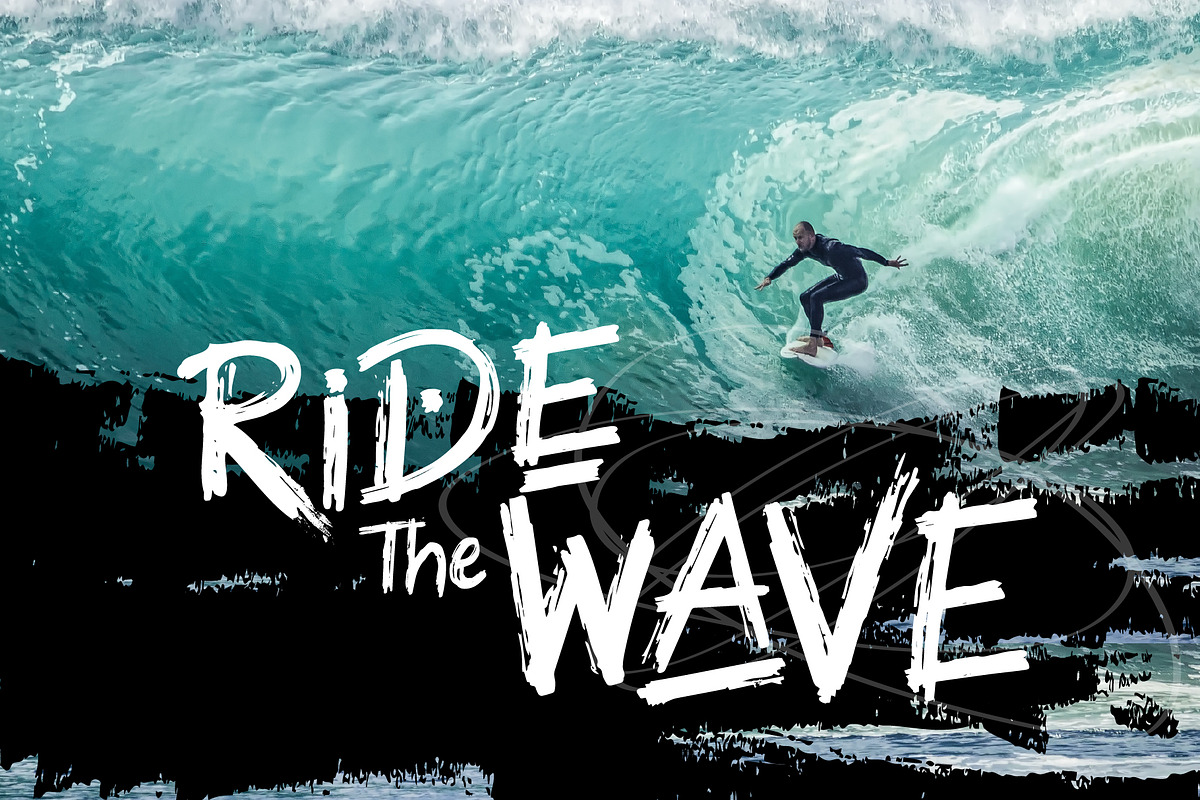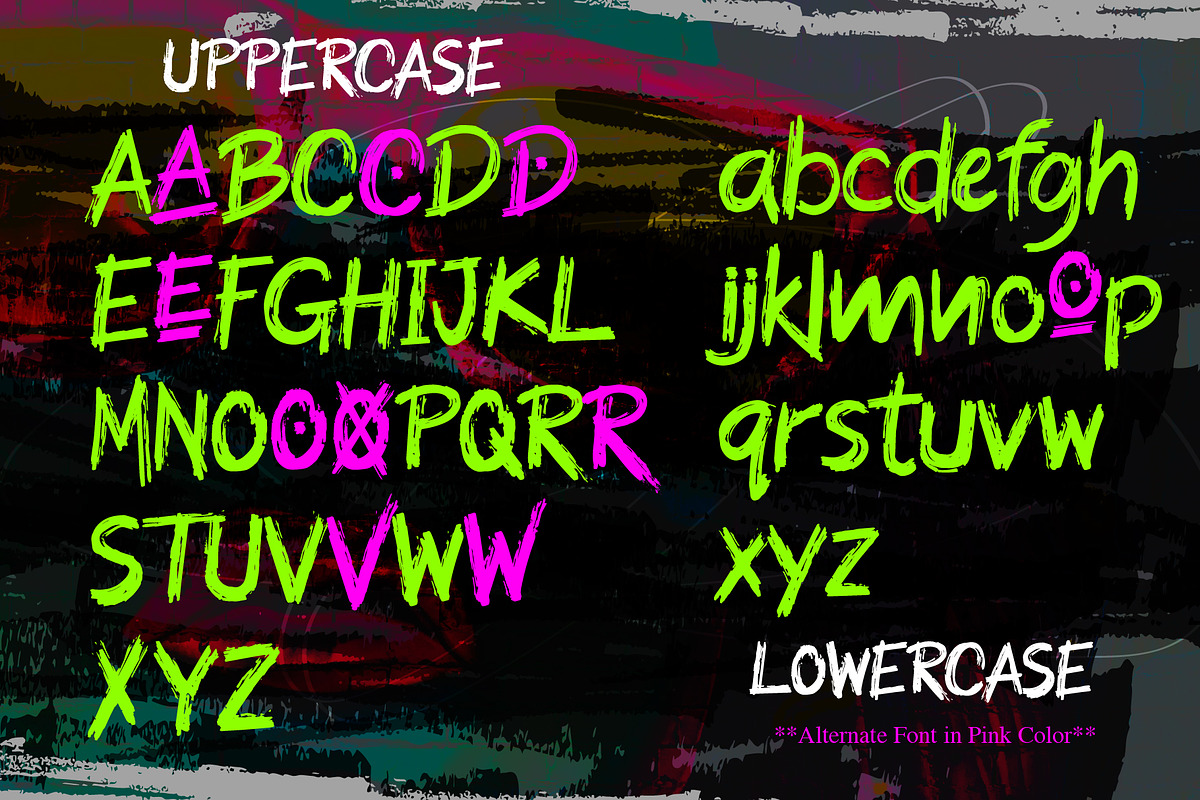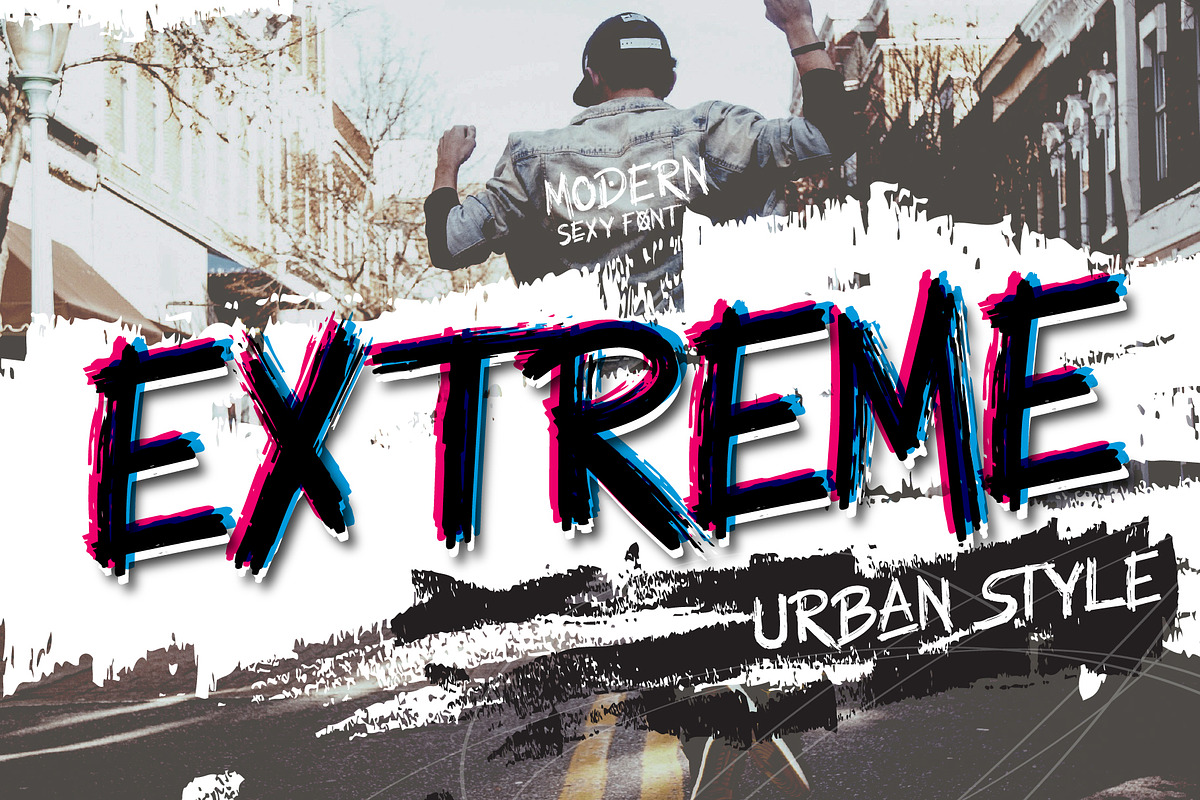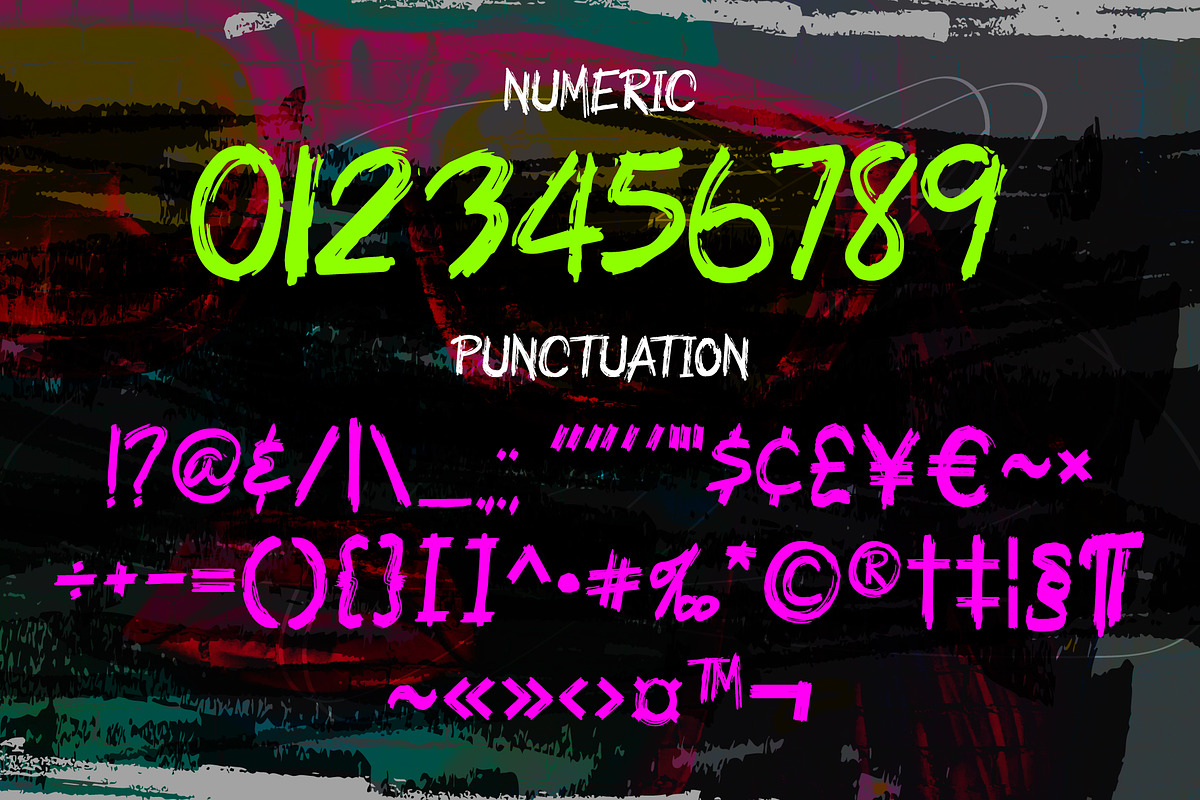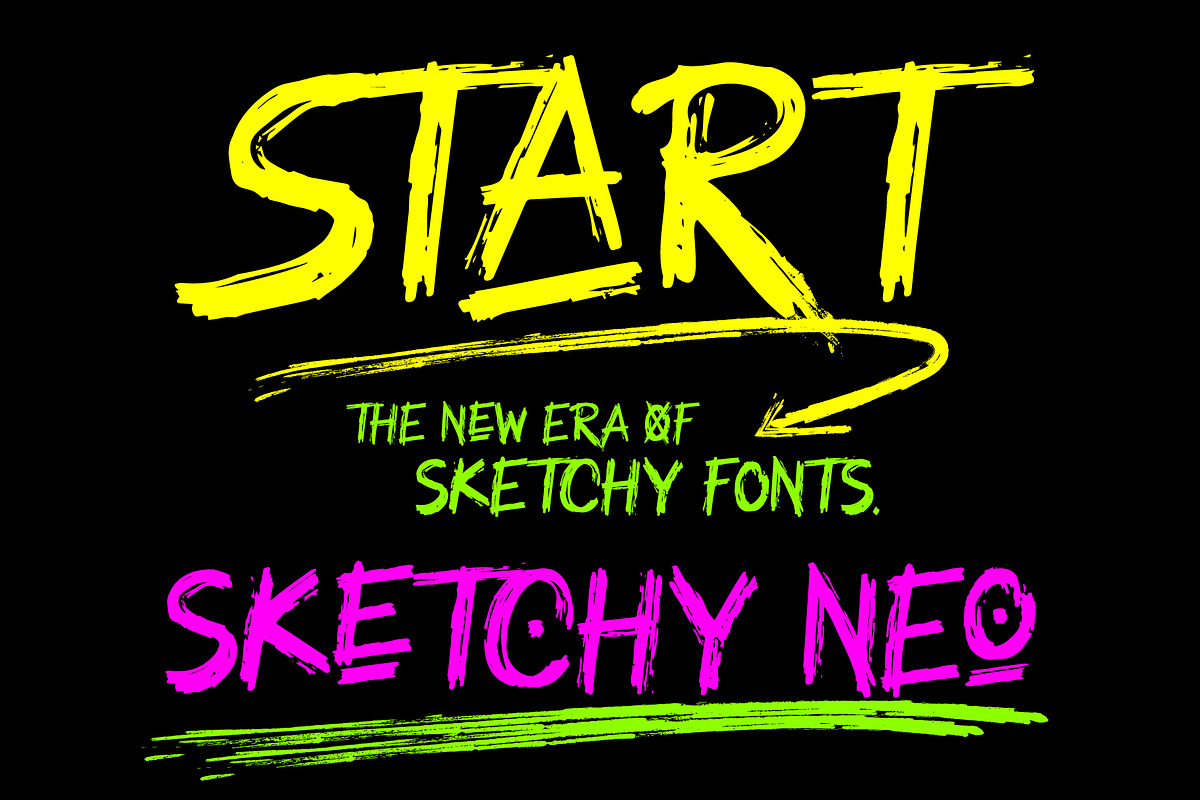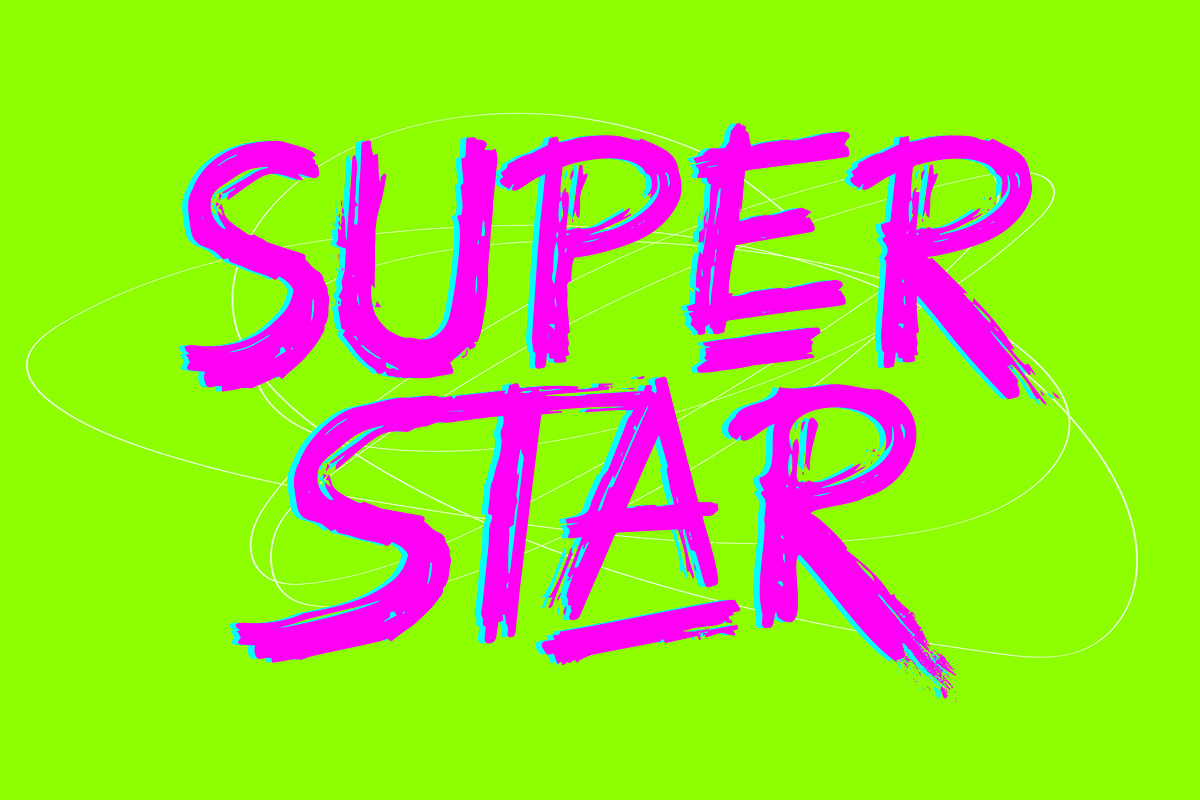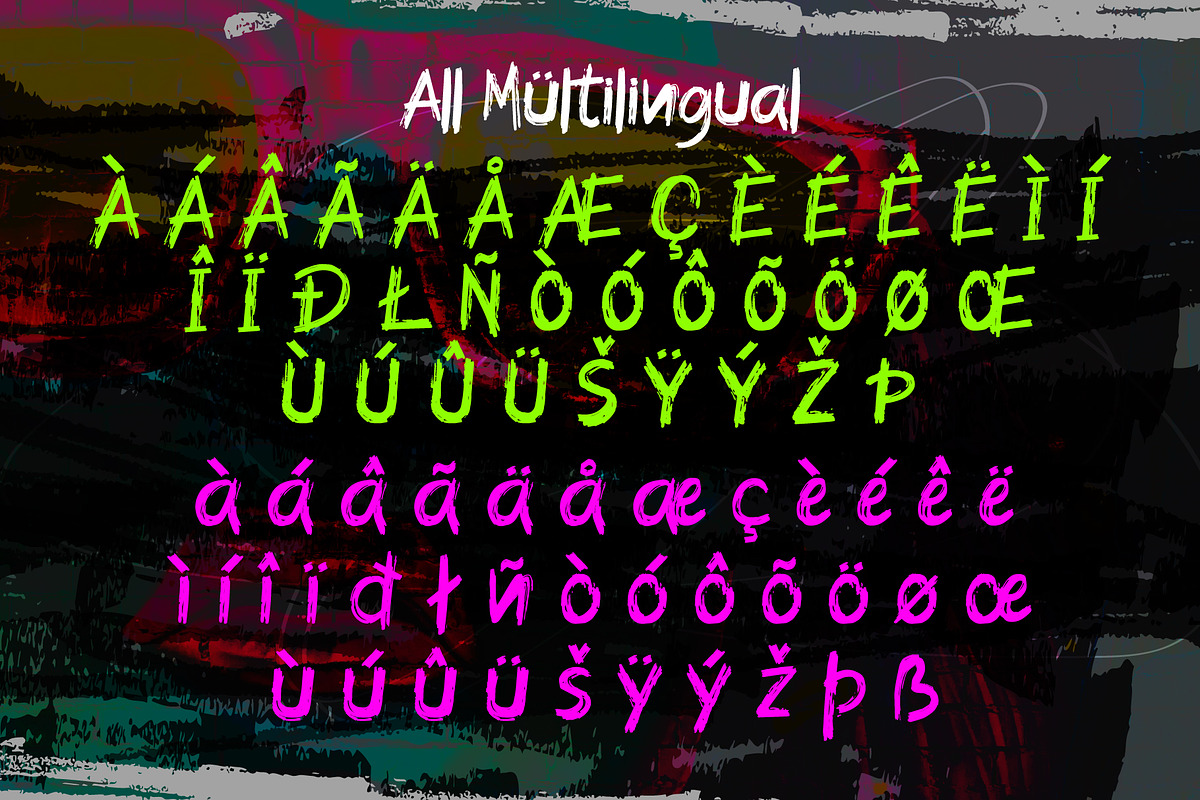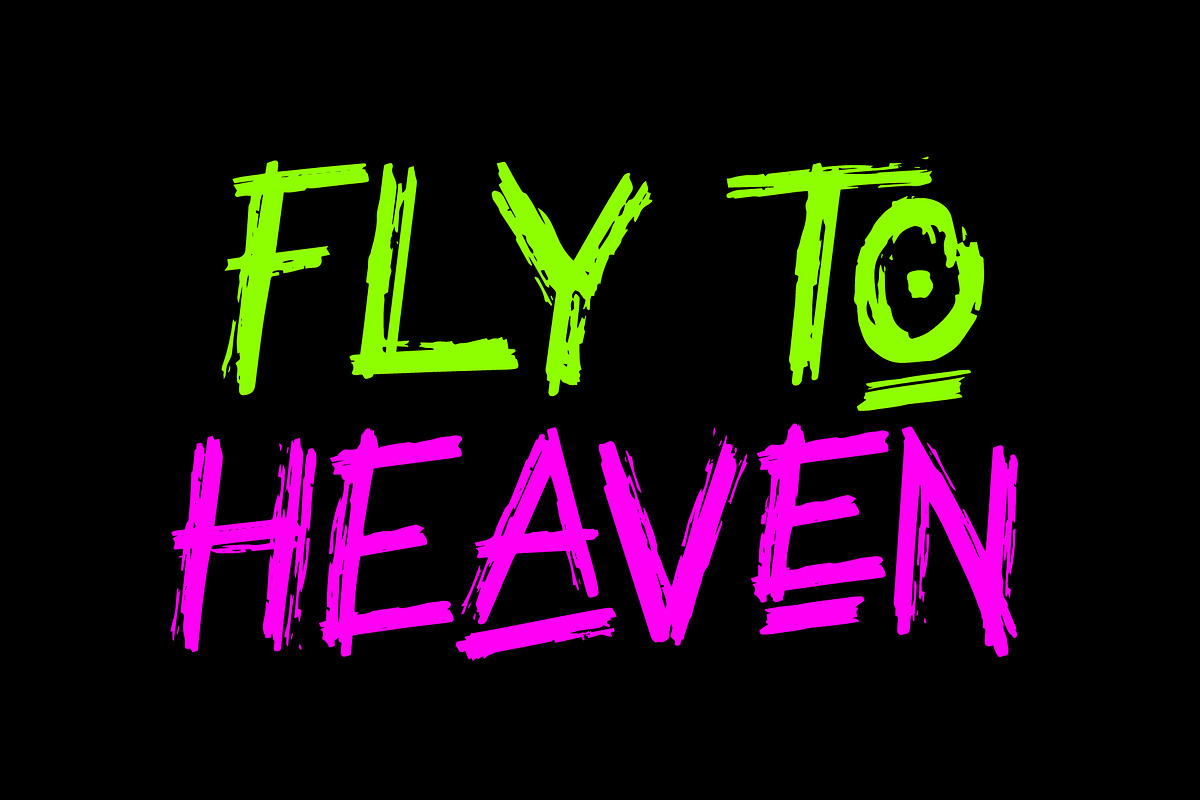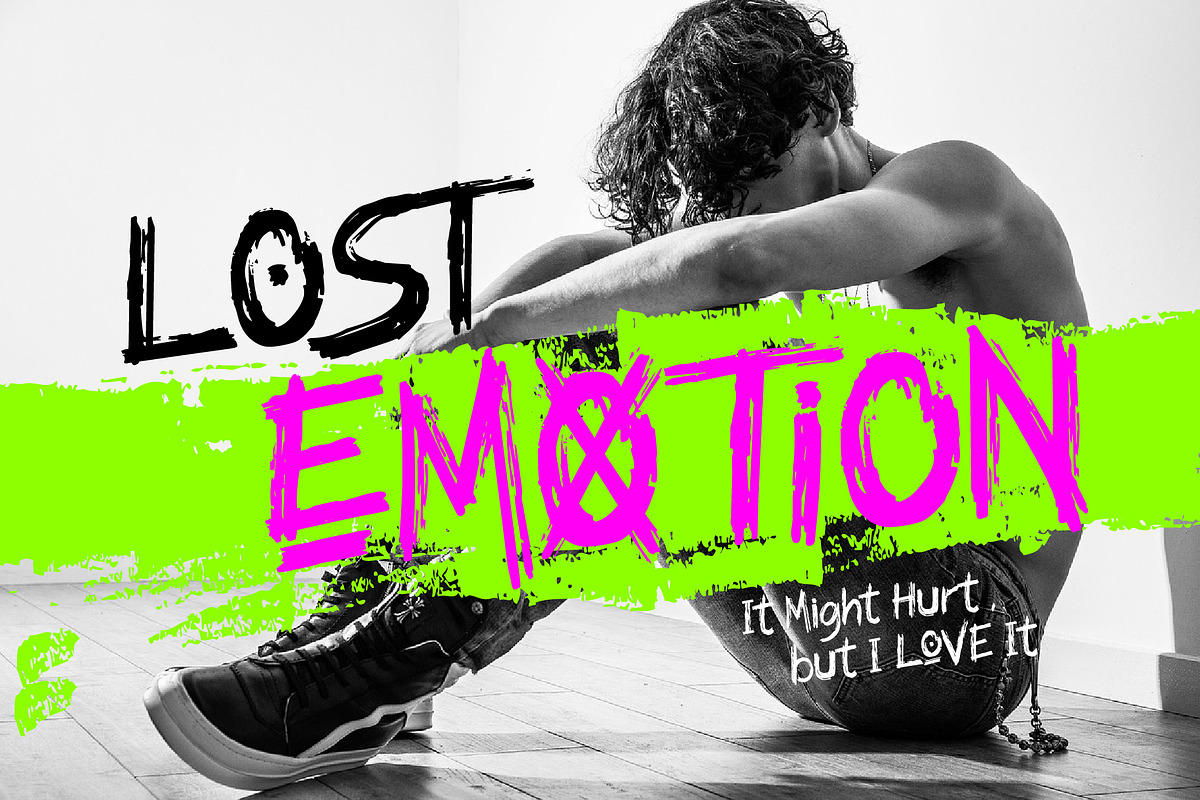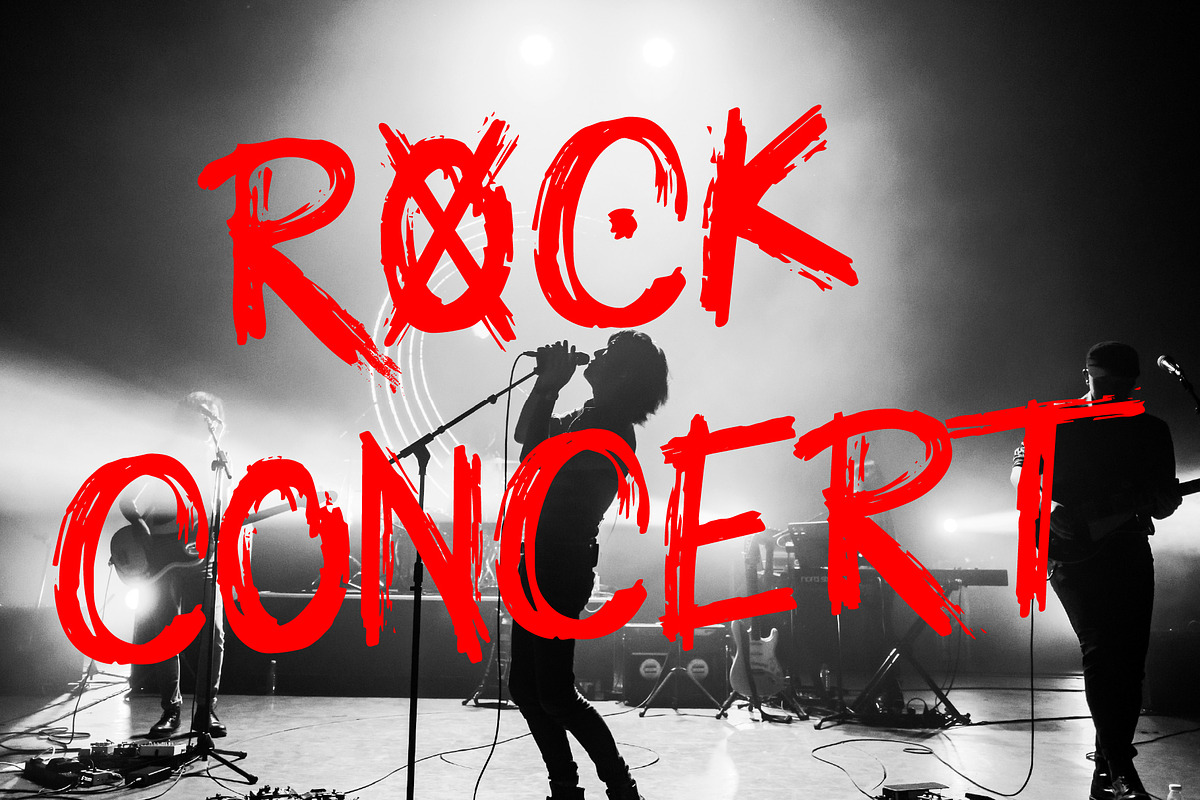
Sketchy Neo
Step up your design game with Sketchy Neo, the reimagined and enhanced offspring of my initial Sketchy font. Rooted in the visceral energy of city life and subterranean street art, this handcrafted brush font infuses your projects with a raw, defiant, and kinetic feel. But Sketchy Neo isn’t simply an update; it’s an entire reinvention. We’ve introduced additional characters, polished the brush strokes, and incorporated crucial elements to crown it your default font for contemporary branding. Boasting a magnetic charm, Sketchy Neo beautifies your creations with a touch of unruly, modern aesthetics.
- Full Set of Standard Glyphs
- Alternate and Ligatures for a natural flow
- Multilingual characters (Accents)